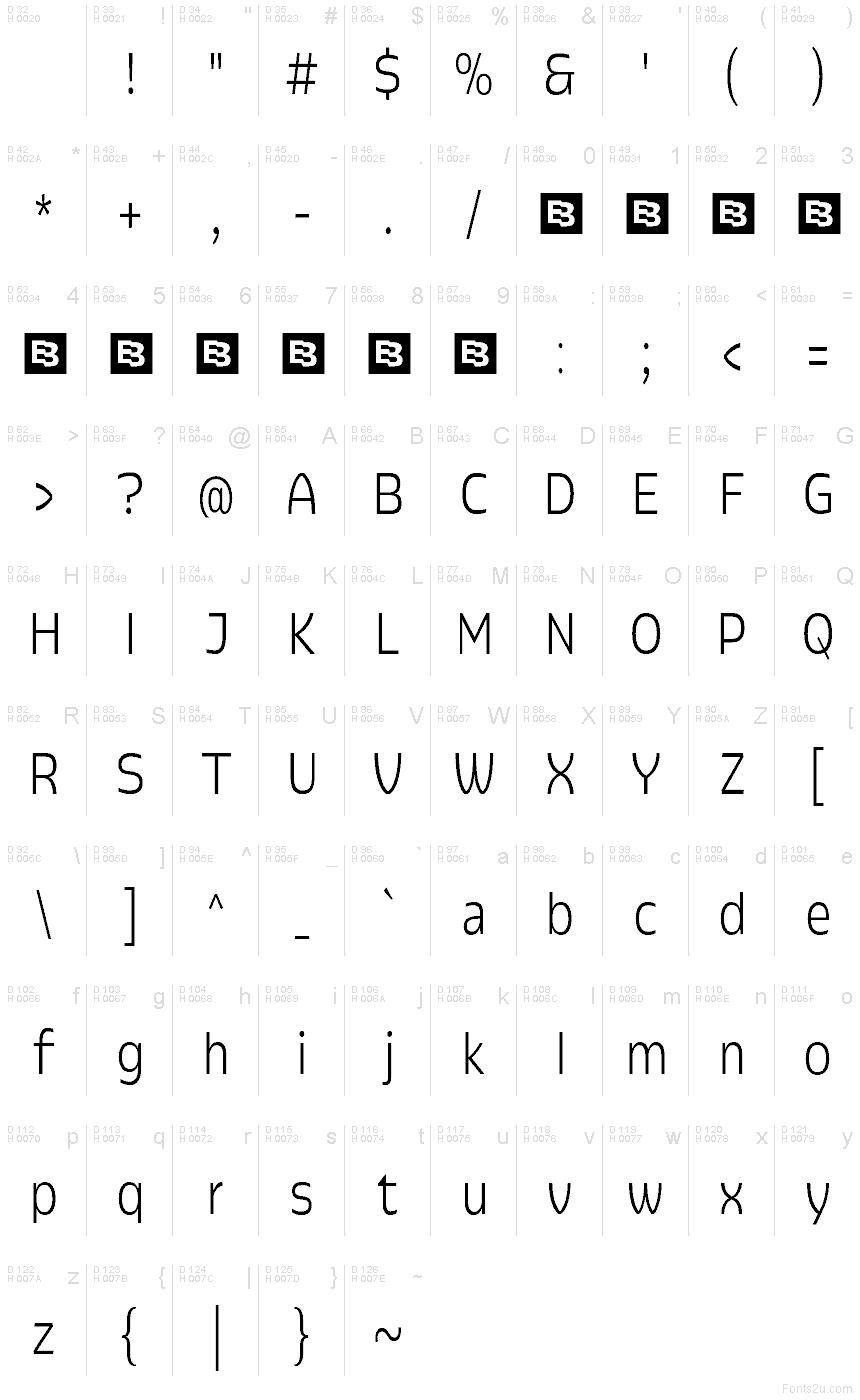
Pocas Trial Light Condensed
Pocas Light Condensed font by Eko Bimantara is a free condensed sans serif typeface that solves the “not enough space” problem without sacrificing clarity. Its slim proportions, soft curves, and airy light strokes keep text crisp instead of cramped, while open counters and an even rhythm make longer lines surprisingly easy to read. As part of the Pocas family, it brings a calm, contemporary voice that feels friendly rather than stiff.
Using Pocas Light Condensed, you can squeeze more meaning into narrow layouts: app interfaces, sidebar labels, menus, packaging panels, infographics, and slim banners all benefit. This free font shines on tidy captions and secondary copy, and it pairs smoothly with a wider grotesk for headlines—or simply use a bolder Pocas for hierarchy. Add a touch of tracking at small sizes to keep the texture clean.